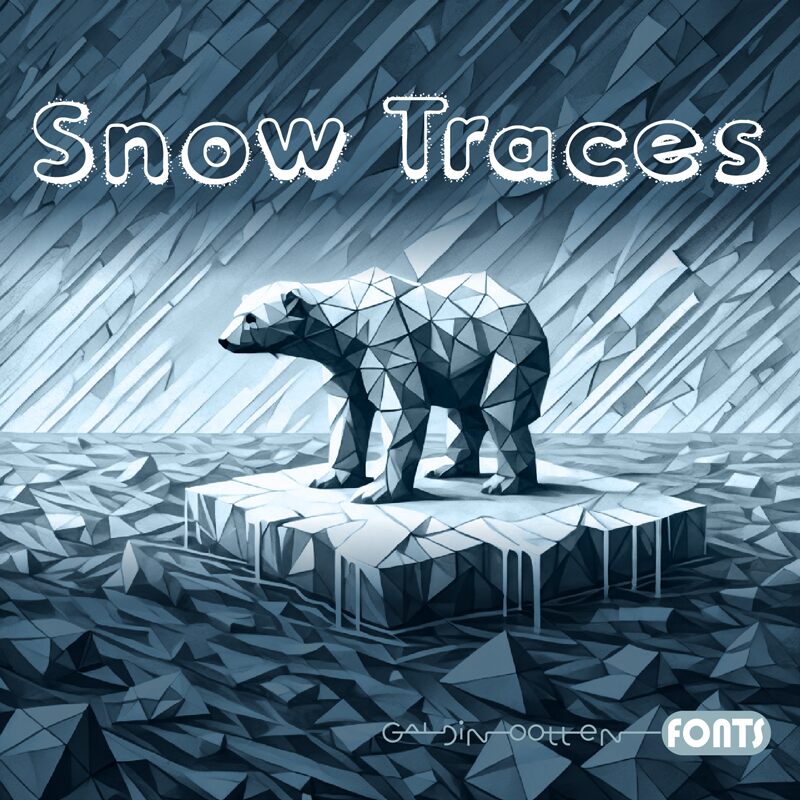
Snow Traces
Snow Traces font by Galdino Otten Fonts playfully explores the winter season with a unique decorative style. This carefully textured display font integrates a whimsical informal aesthetic that feels casual, natural, and friendly in special projects. Its overall playful vibes make it a wonderful choice to enjoy designing with.
The free decorative display font can be useful for short headings, titles, and branding projects having a winter-themed background. Specifically for flyers, brochures, logos, labels, posters especially with white color on black or dark backgrounds as well as vice-versa.